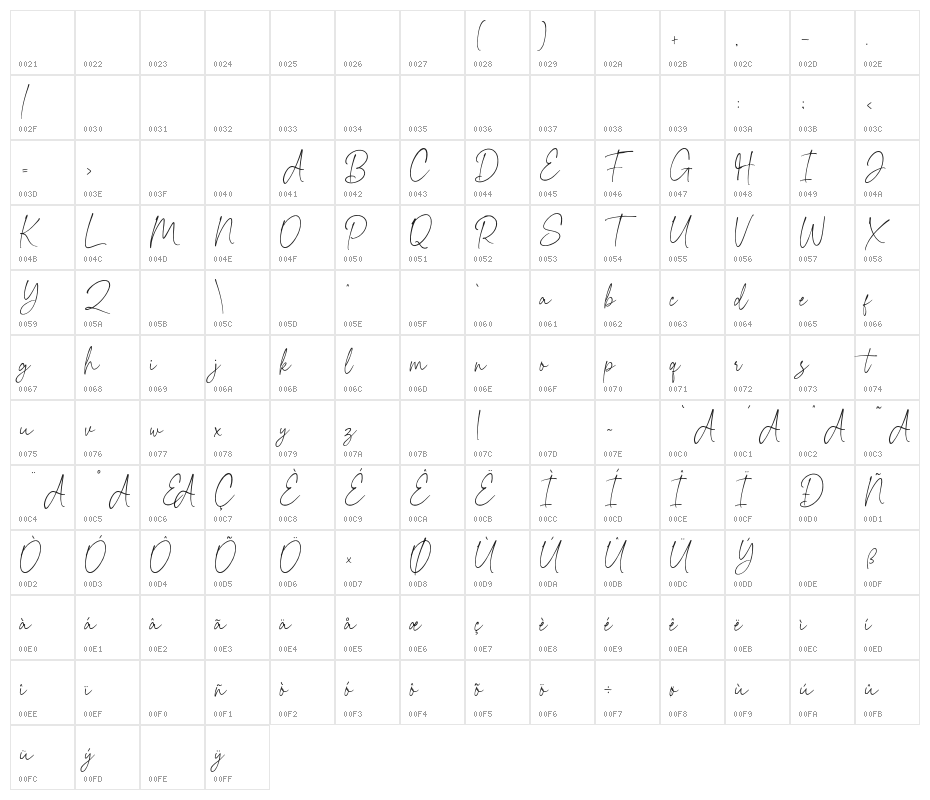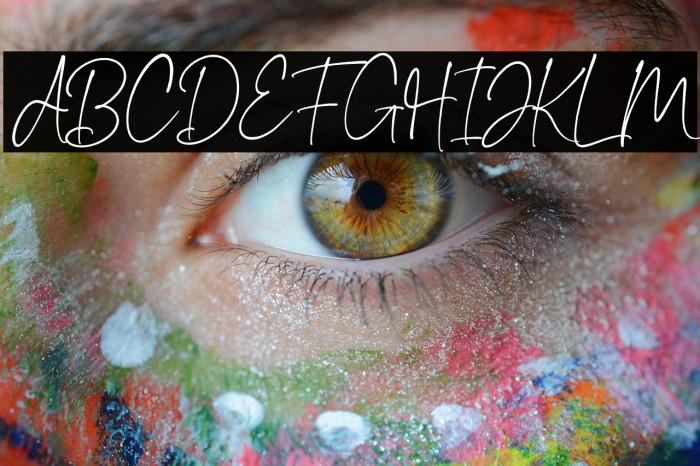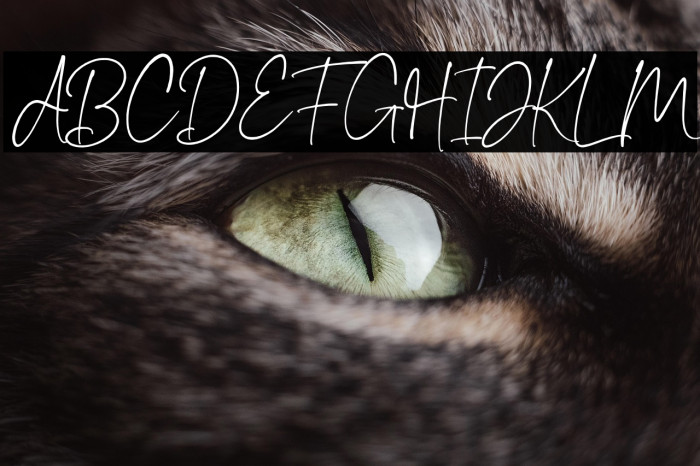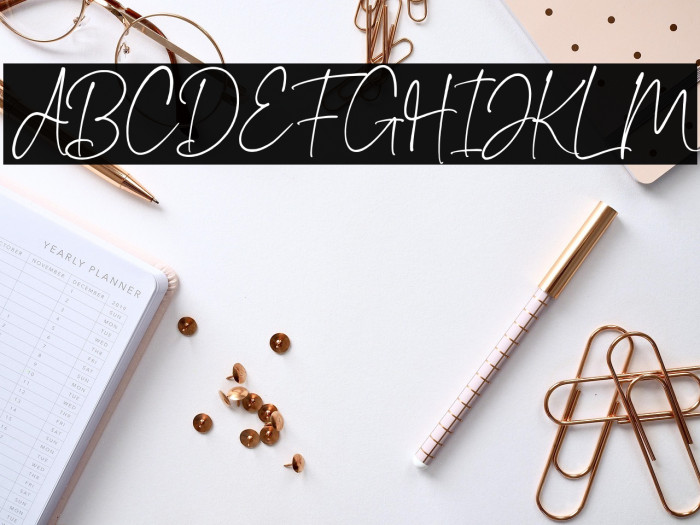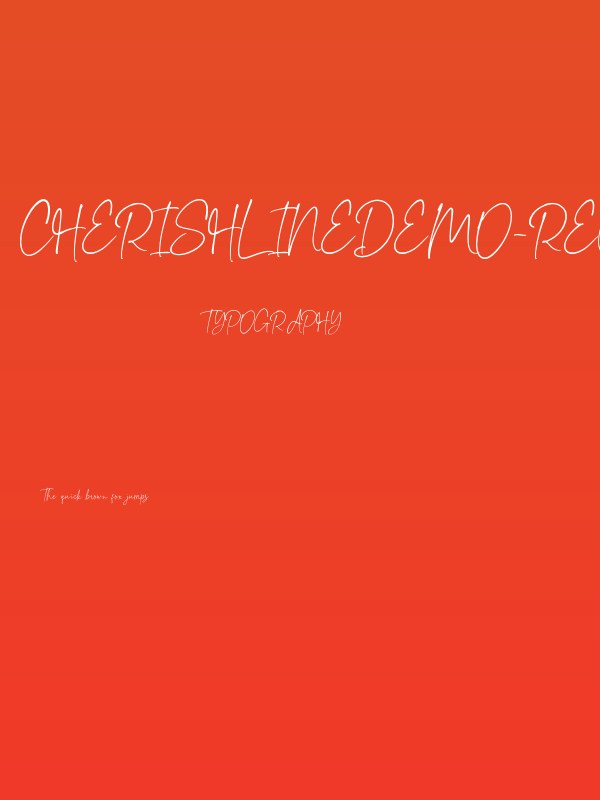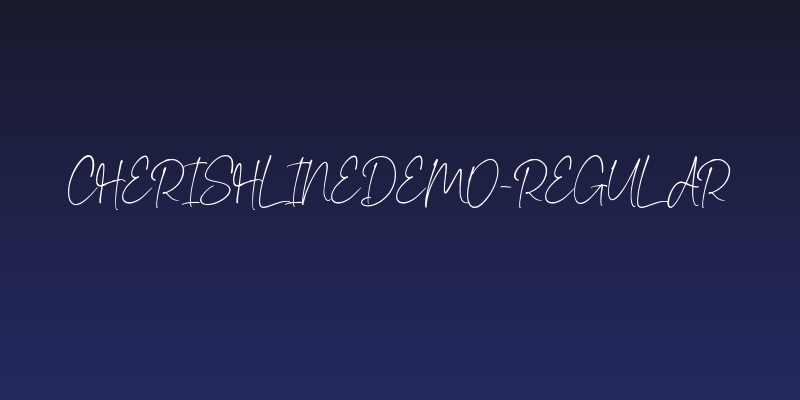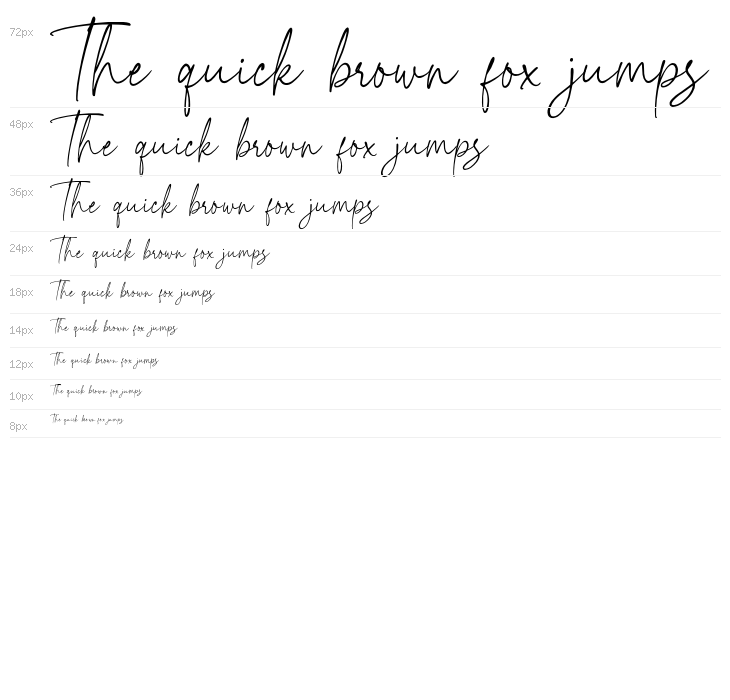
CherishlineDemo-Regular Font
CherishlineDemo-Regular Description
A delicate, flowing handwritten script with tall ascenders, long descenders, and a natural, casual rhythm. The strokes are thin with low contrast, and the letterforms are slightly slanted, mimicking modern calligraphy.
| Use Case | Logos, Headlines, Invitations, Decorative text |
| Proposed Projects | Wedding invitations, greeting cards, personal branding, social media graphics, feminine product packaging. |